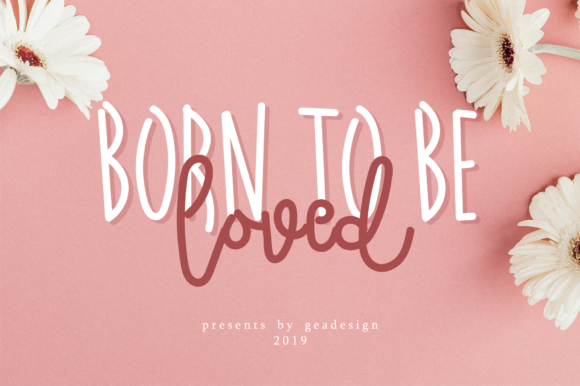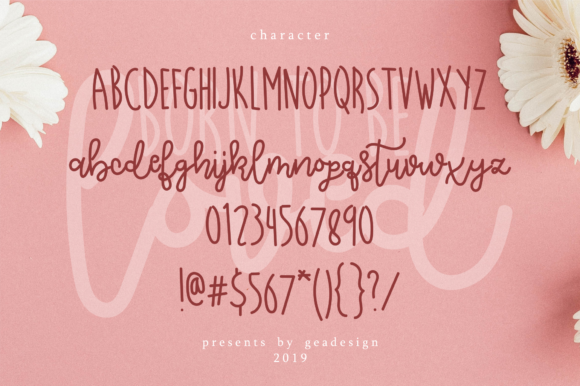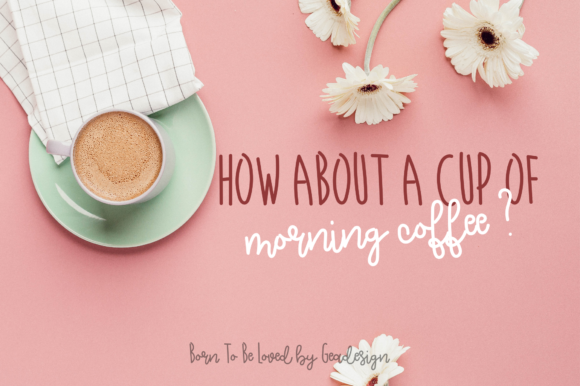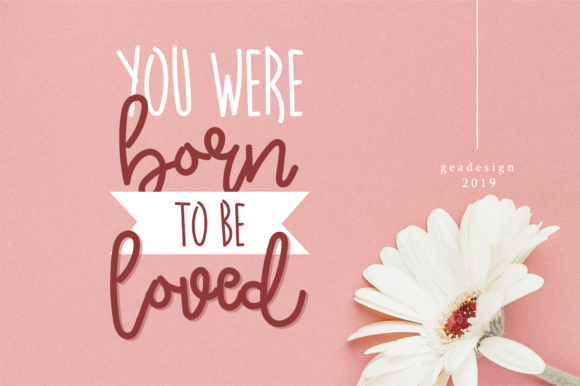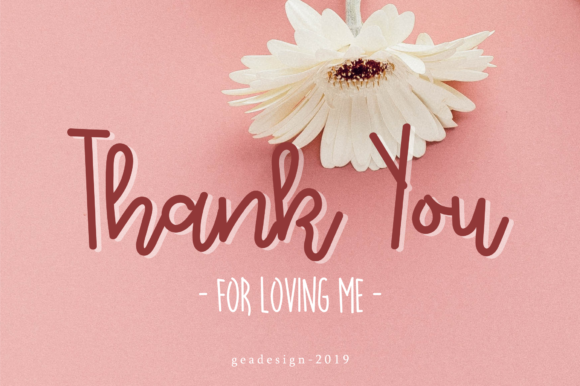
Born to Be Loved Font
About Born to Be Loved Font
Born to Be Loved is a stunning and charming handwritten font with an adorable feel. It will add a lovely touch to any crafts idea!